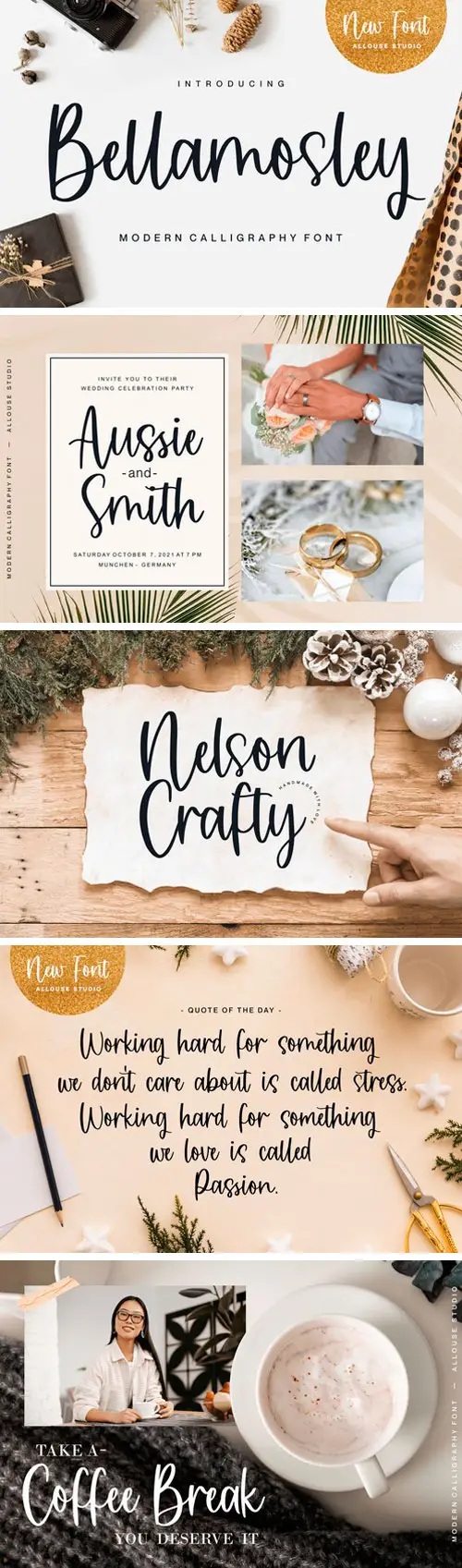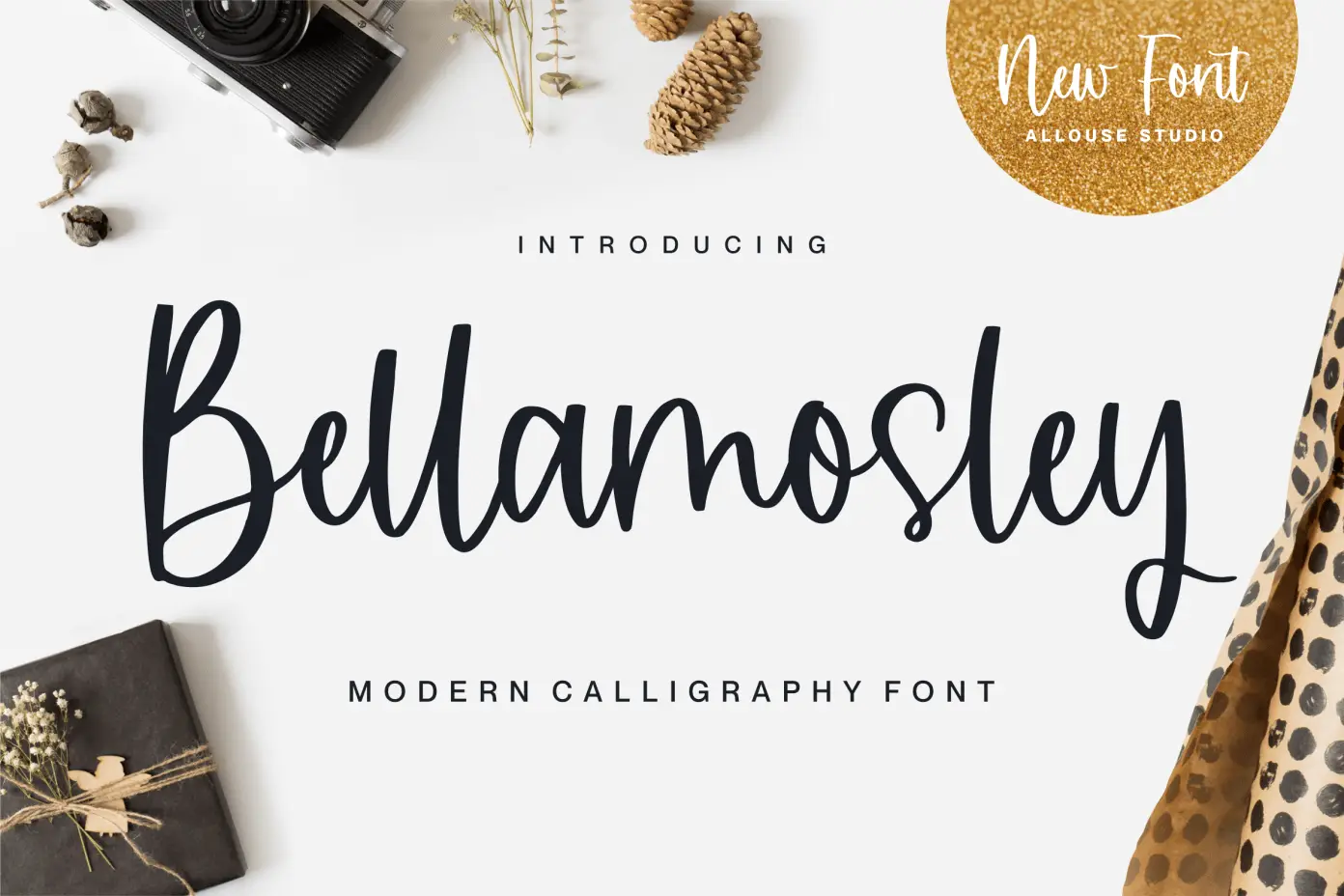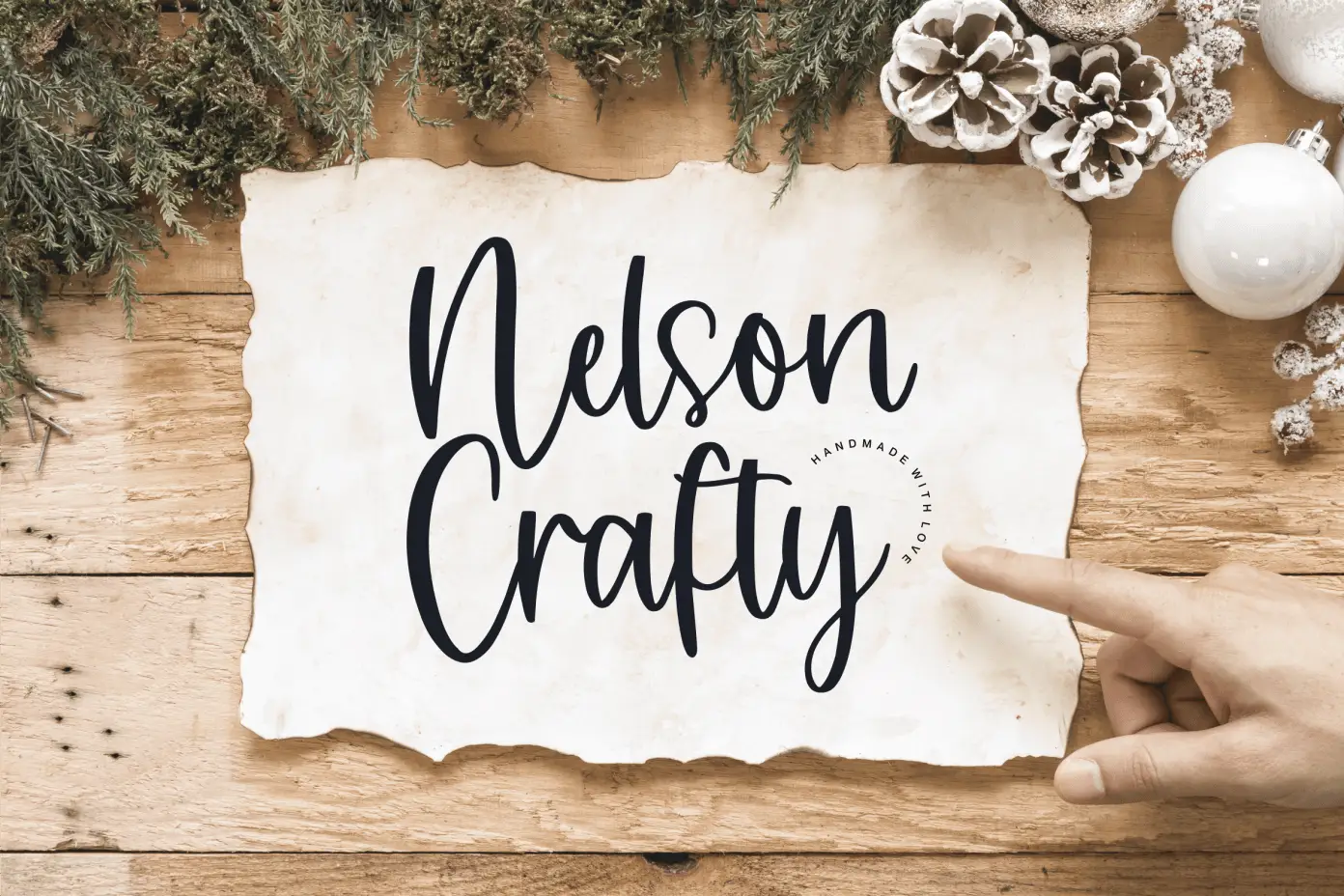
Bellamosley Script Font
The Bellamosley Script Font is a beautifully crafted typeface that embodies elegance and sophistication. This font features flowing cursive letters, making it perfect for a variety of design projects.
Utilize the Bellamosley Script Font for branding, logo design, invitations, and other print materials. Its elegant style adds a personal touch to any project.